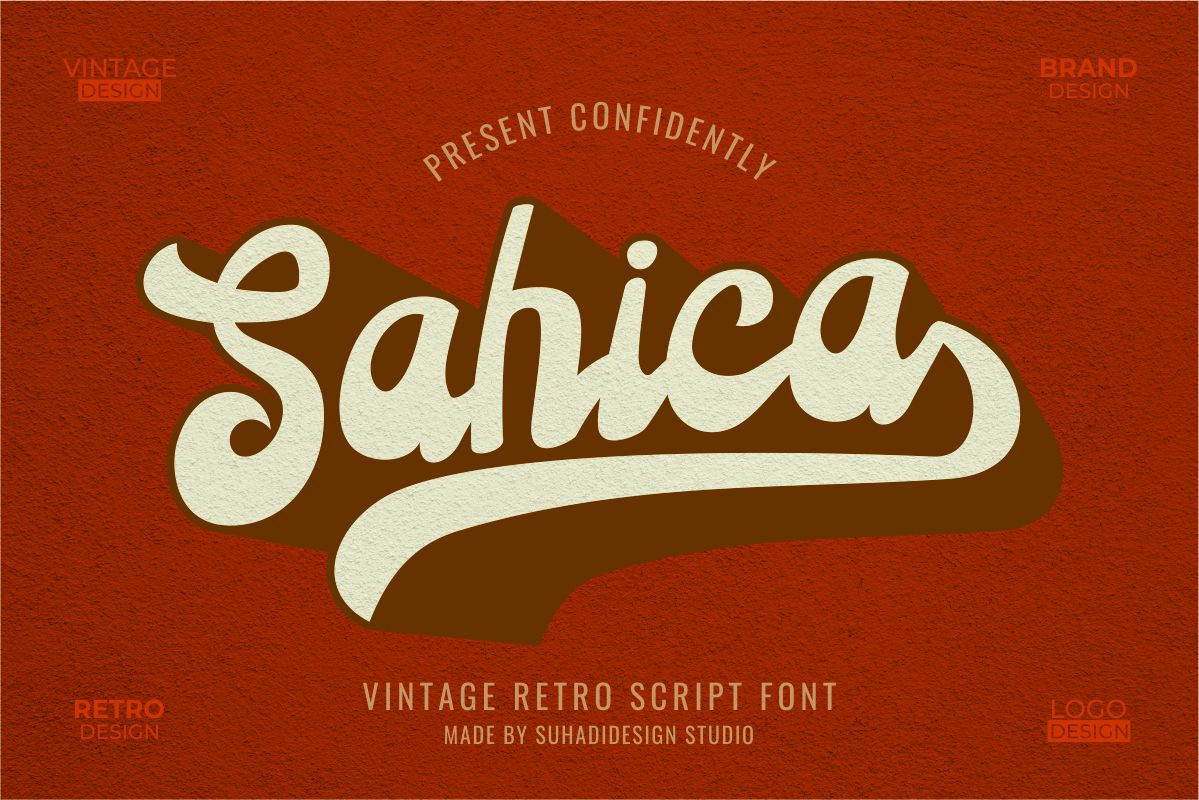
Sahica Branding Retro Groovy Font
Hi Ladies and Gentlemen! According to market demand, the font is more likely to be a modern font, so I decided to create a vintage Branding Retro Groovy font that is in your view. The Sahica font is a fun and very popular retro script font, coming in a modern style hoping to be accepted by the market. We keep this font looking elegant, classy, easy to read, stylish, attractive and easy to use. Sahica Font is a great choice for brands, vintage, retro designs, logos, food menus, brand names, branding, brands, quotes, album covers, and other projects. The Sahica font is here to take your design to the next level.
• Uppercase and Lowercase • Swash lower case end down • Multilingual support • Numeral and punctuation